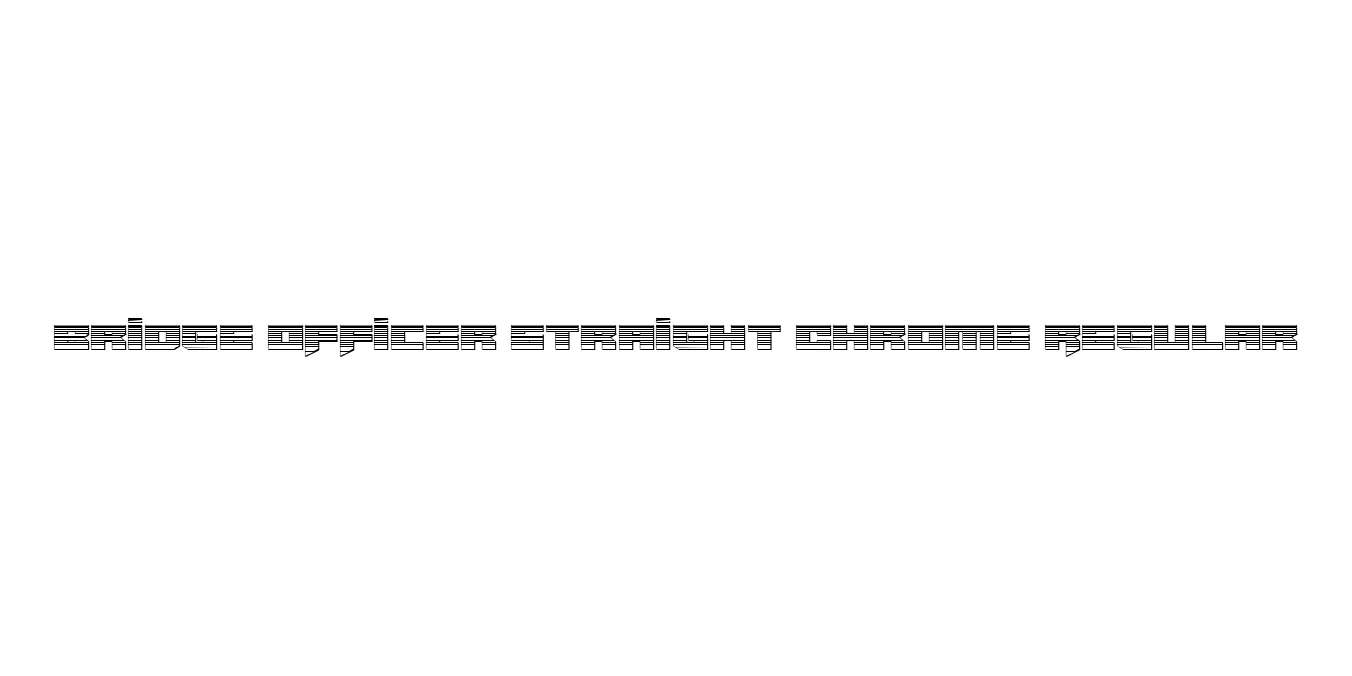
Bridge OFFicer Straight Chrome Regular
Designed by Galdino Otten
| Category | Display / Decorative |
| Designer | Galdino Otten |
The Bridge OFFicer Straight Chrome Regular is a bold, industrial display font designed to command attention. Drawing inspiration from military insignias and maritime signaling, this typeface features rigid, geometric structures that evoke a sense of authority and precision. The 'Straight Chrome' variant specifically incorporates a 3D-effect metallic finish, simulating the reflective properties of polished steel, which makes it ideal for high-impact visual communication.
Developed as part of a larger typographic family, this font excels in digital environments where texture and depth are required without complex shading. Its wide stance and clear counters ensure readability even with its decorative chrome styling. Over the years, it has become a popular choice for branding, video game titles, and patriotic-themed graphics, offering a modern twist on classic stencil aesthetics.
Bridge OFFicer Straight Chrome Regular Best Uses
Perfect for title screens and HUD elements in action-heavy or sci-fi games.
Ideal for logos needing a strong, masculine, and industrial appearance.
Highly effective for event posters, especially for automotive or military themes.
Works well on t-shirts and sports team merchandise for a bold, reflective look.